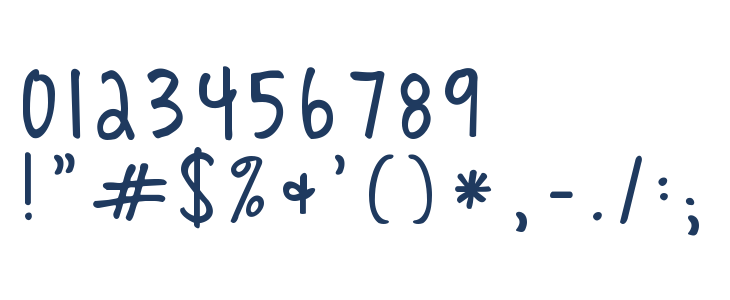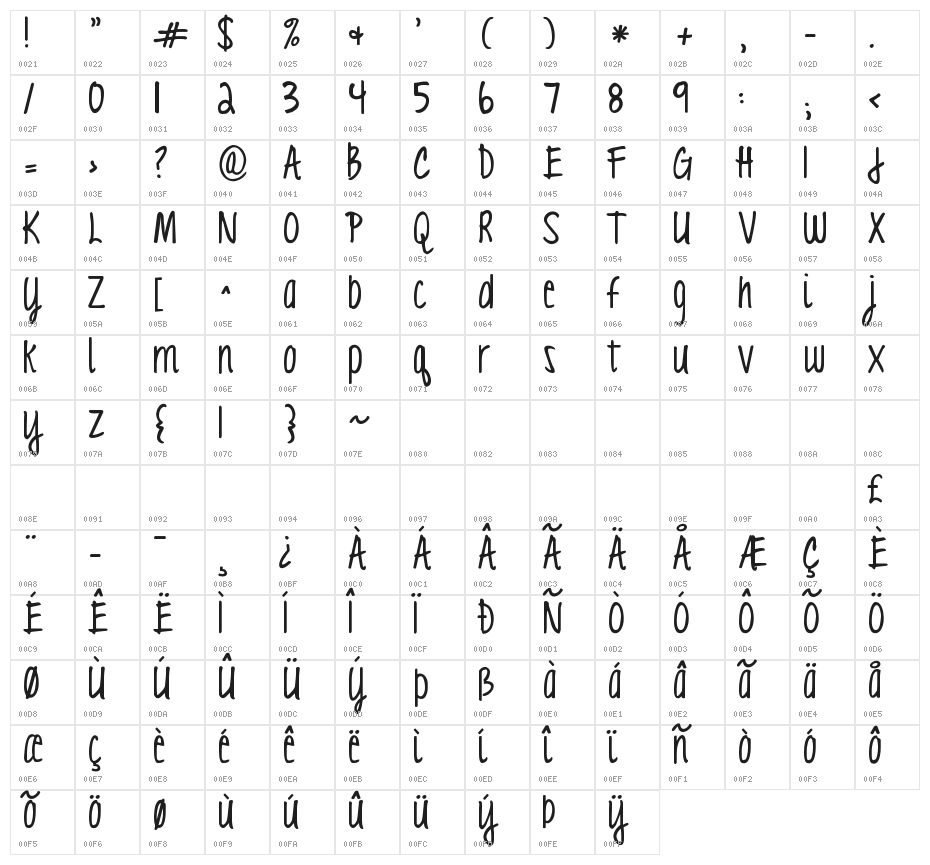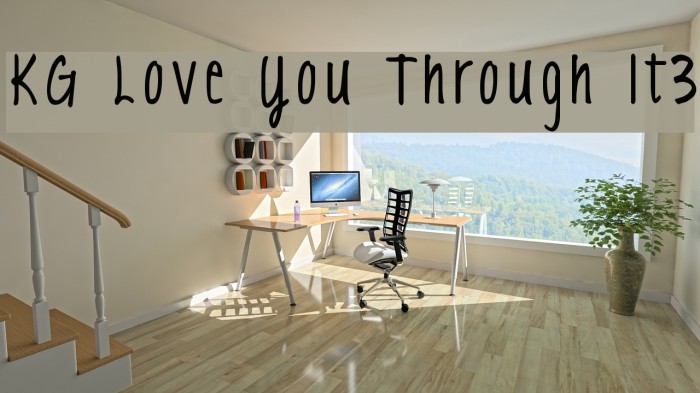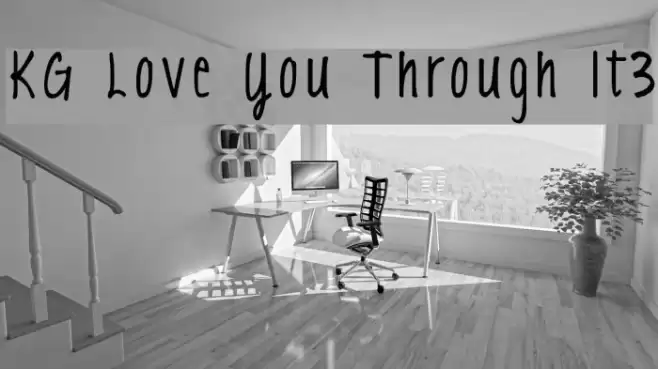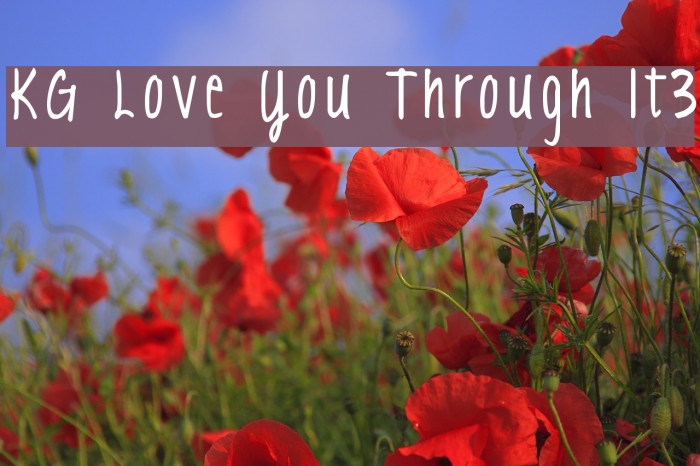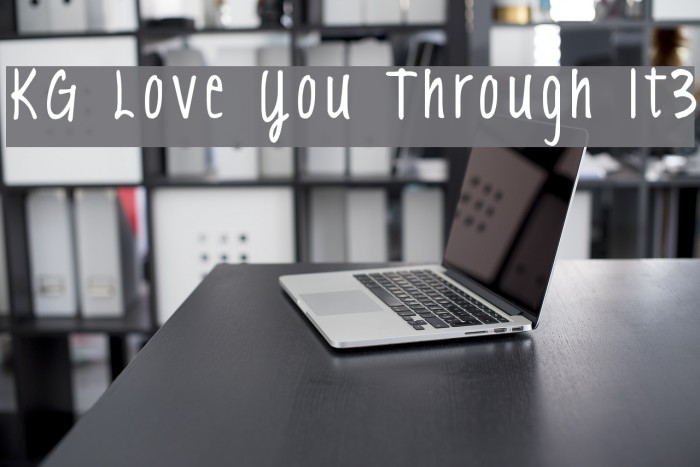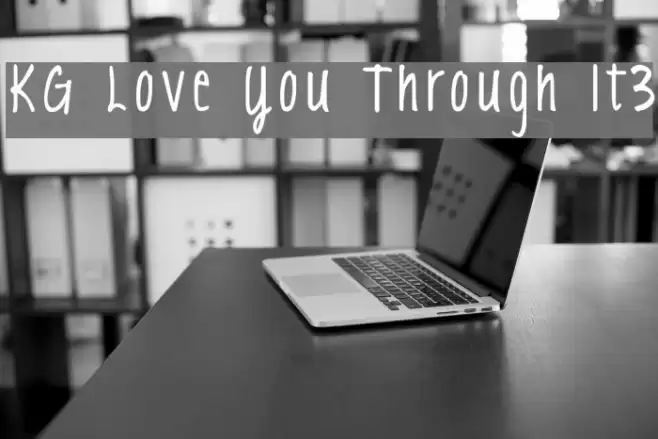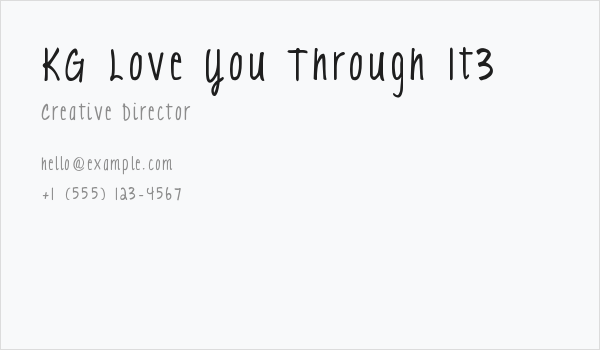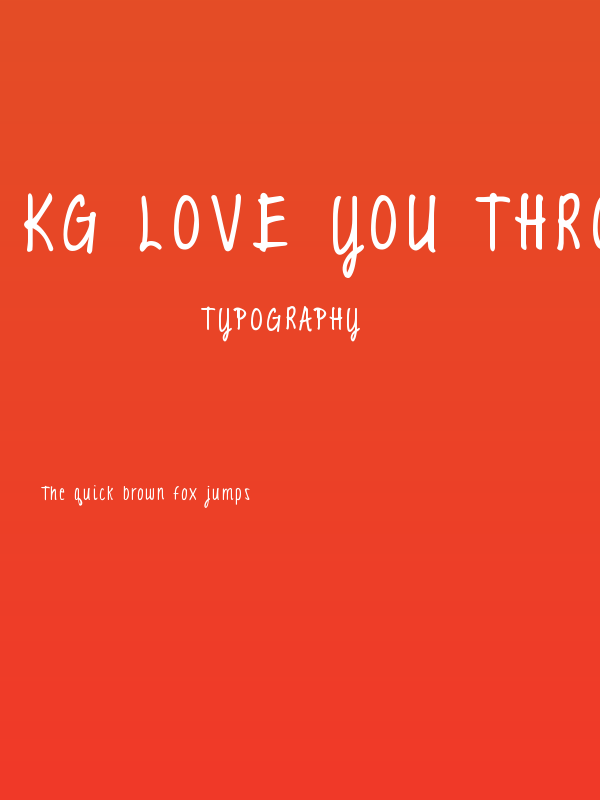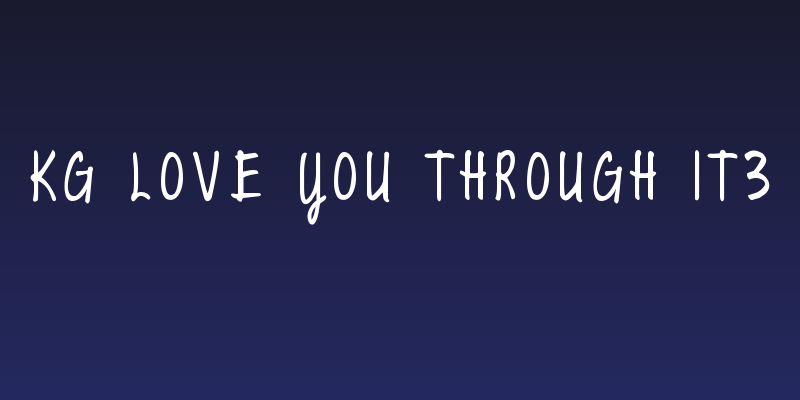
KG Love You Through It3 Font
KG Love You Through It3 Description
This font features a playful and casual handwritten style, characterized by its smooth curves and slightly irregular shapes that give it a personal touch. The letters are tall and narrow, with a consistent stroke width that maintains readability while adding a whimsical flair. The uppercase letters are bold and prominent, while the lowercase letters maintain a friendly and approachable appearance. The numerals are clear and easy to distinguish, complementing the overall style. Special characters are included, enhancing the font's versatility for various applications.
| Overall Style | Casual, Playful |
| Use Case | Headlines, Informal text, Creative projects |
| Proposed Projects | Ideal for greeting cards, children's books, personal blogs, and informal branding projects. |